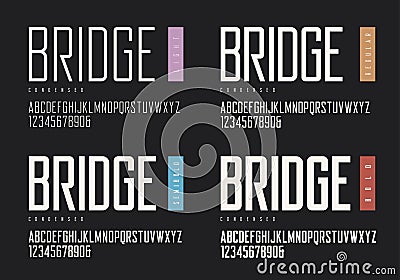
Condensed light regular semibold bold sans serif. Vector typefaces, uppercase alphabet with letters and numbers, font, typography. #111308216
Condensed light regular semibold bold sans serif. Vector typefaces, uppercase alphabet with letters and numbers, font, typography. Global swatches.